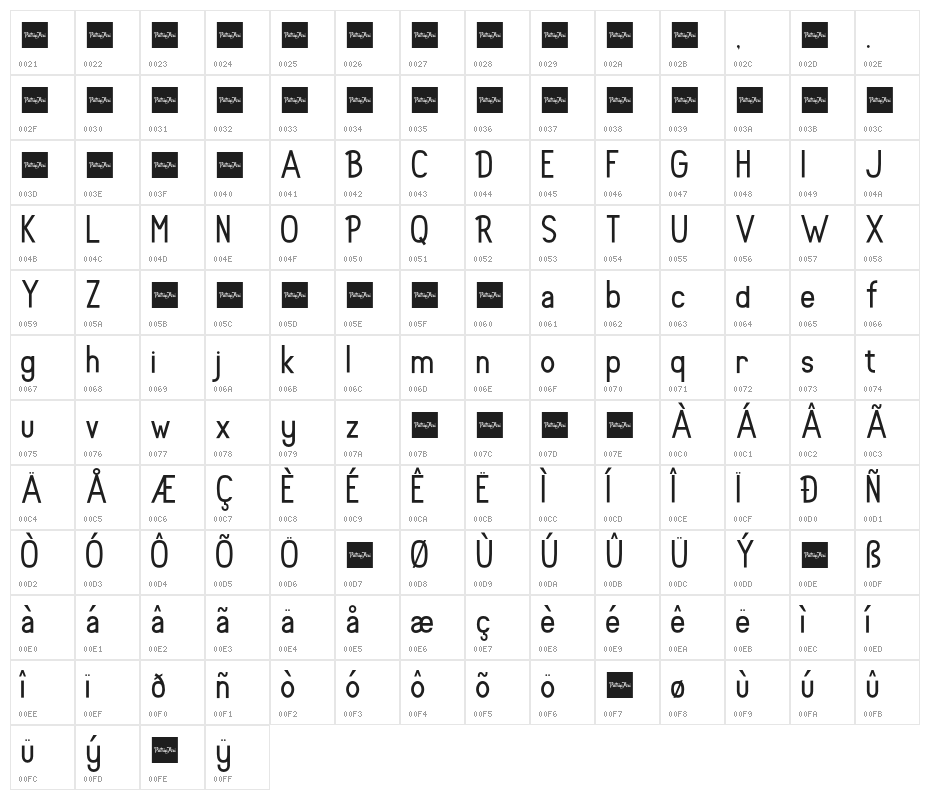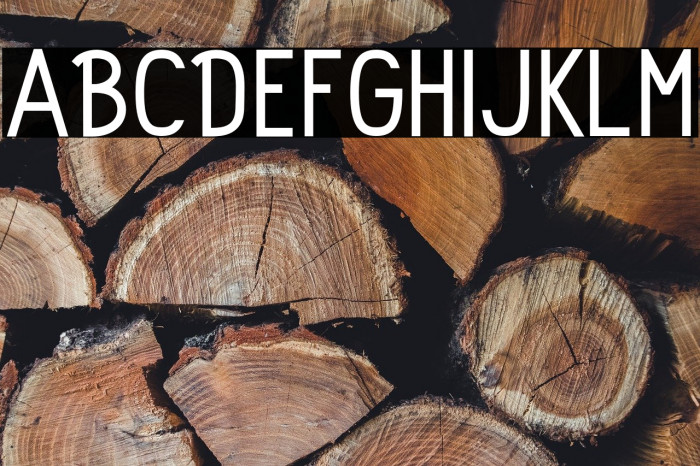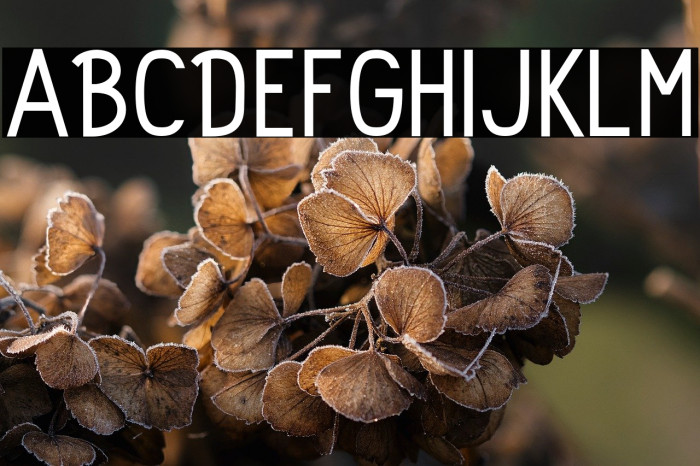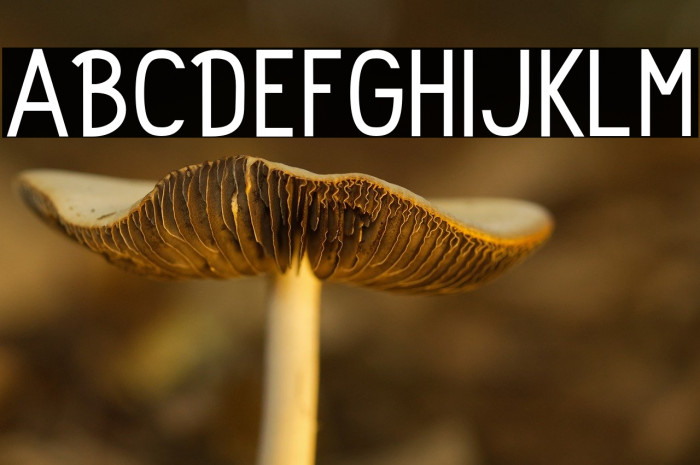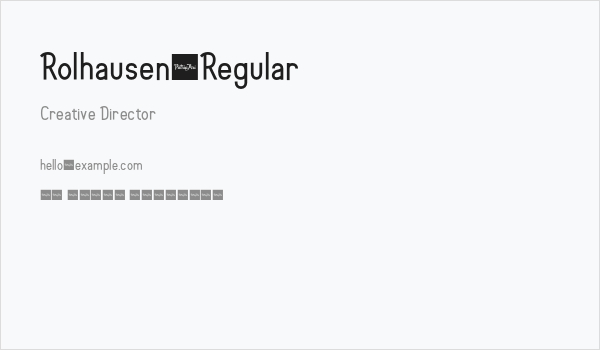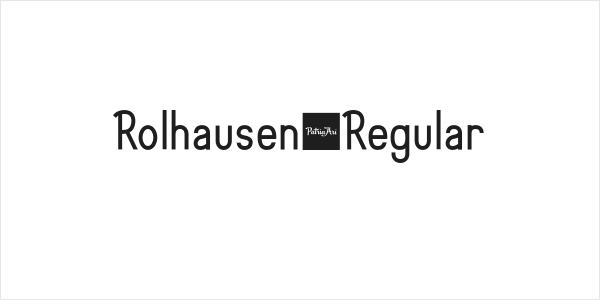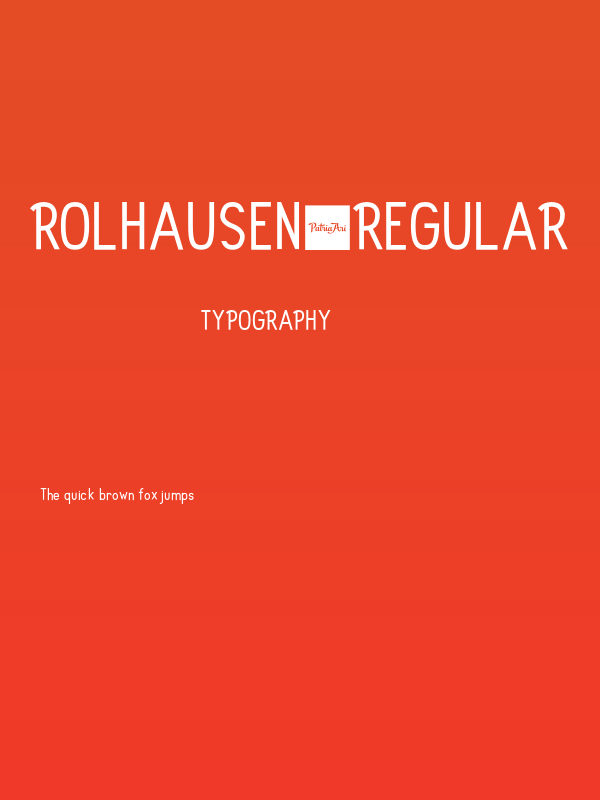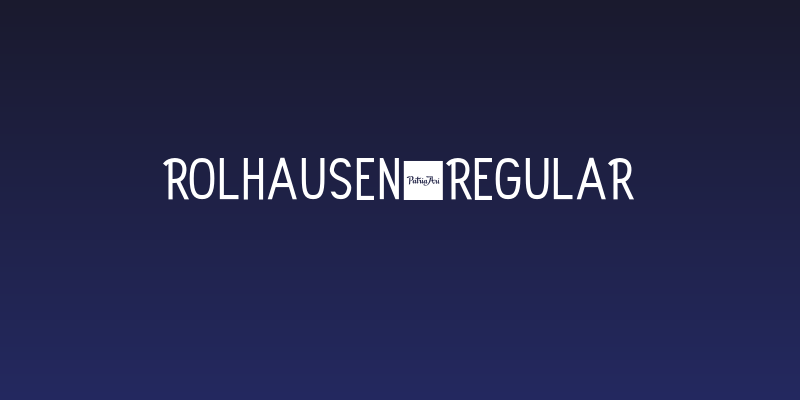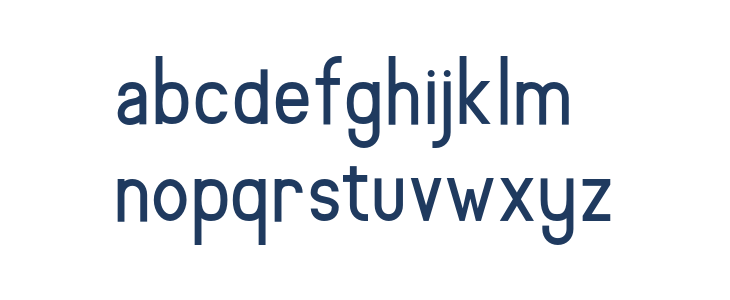
Rolhausen-Regular Font
Rolhausen-Regular Description
This font features a clean and modern sans-serif style with a uniform stroke width that gives it a sleek and contemporary appearance. The uppercase letters are tall and slightly condensed, while the lowercase letters maintain a consistent height, contributing to a balanced and harmonious look. The characters are well-spaced, ensuring readability and clarity. The font's simplicity and elegance make it versatile for various design applications. Its geometric shapes and straight lines convey a sense of professionalism and efficiency, ideal for both digital and print media.